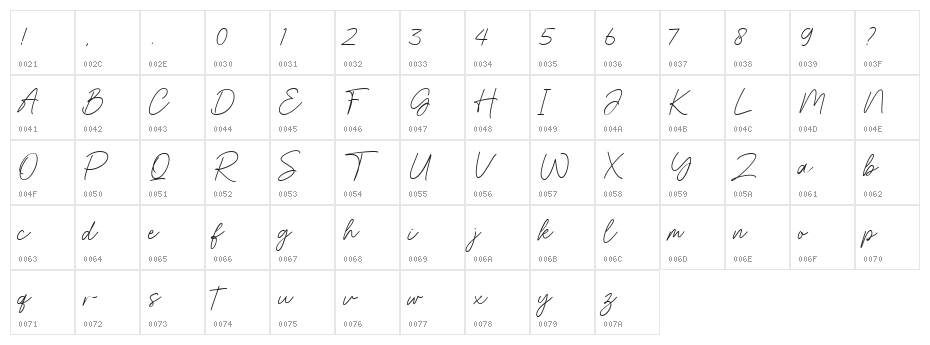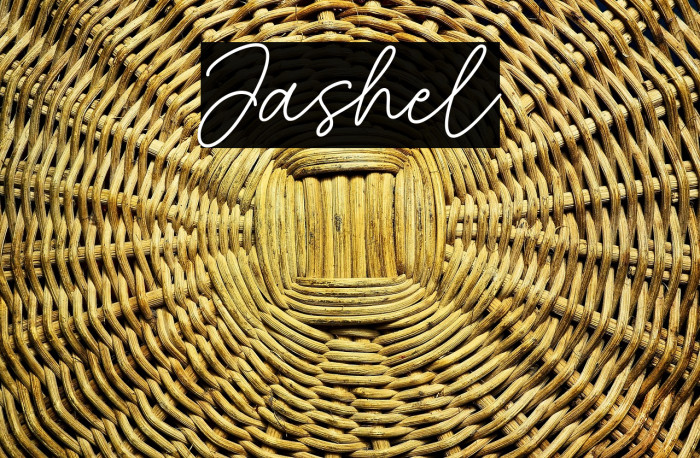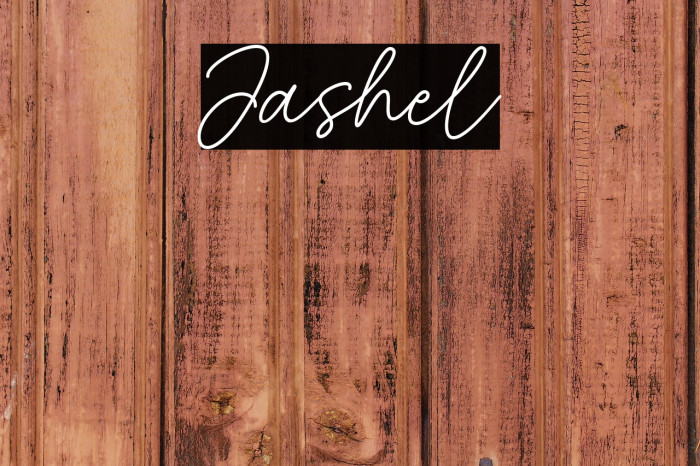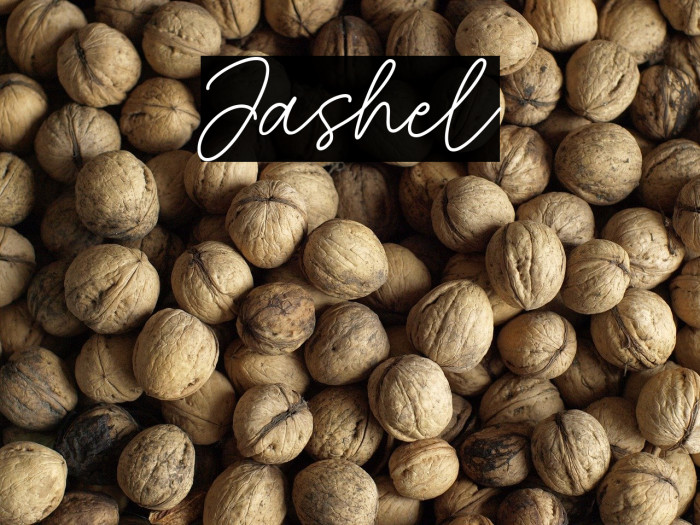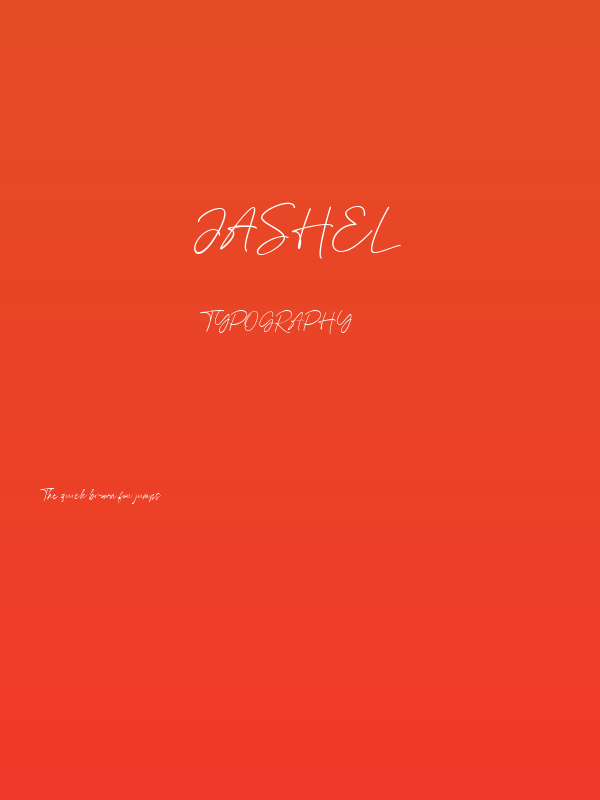
Jashel Font
Jashel Description
This font exhibits a fluid, handwritten style characterized by elegant, flowing strokes that mimic natural handwriting. The letters are connected, providing a seamless and continuous appearance. The uppercase letters are slightly more elaborate, with subtle flourishes that add a touch of sophistication. The lowercase letters maintain a consistent flow, enhancing readability while preserving the handwritten aesthetic. The numerals are clear and legible, complementing the overall style. This font is ideal for projects that require a personal, intimate touch, such as invitations, greeting cards, or personal branding.
| Use Case | Logos, Headlines, Personal projects |
| Proposed Projects | Ideal for invitations, greeting cards, personal branding, and any project needing a personal touch. |